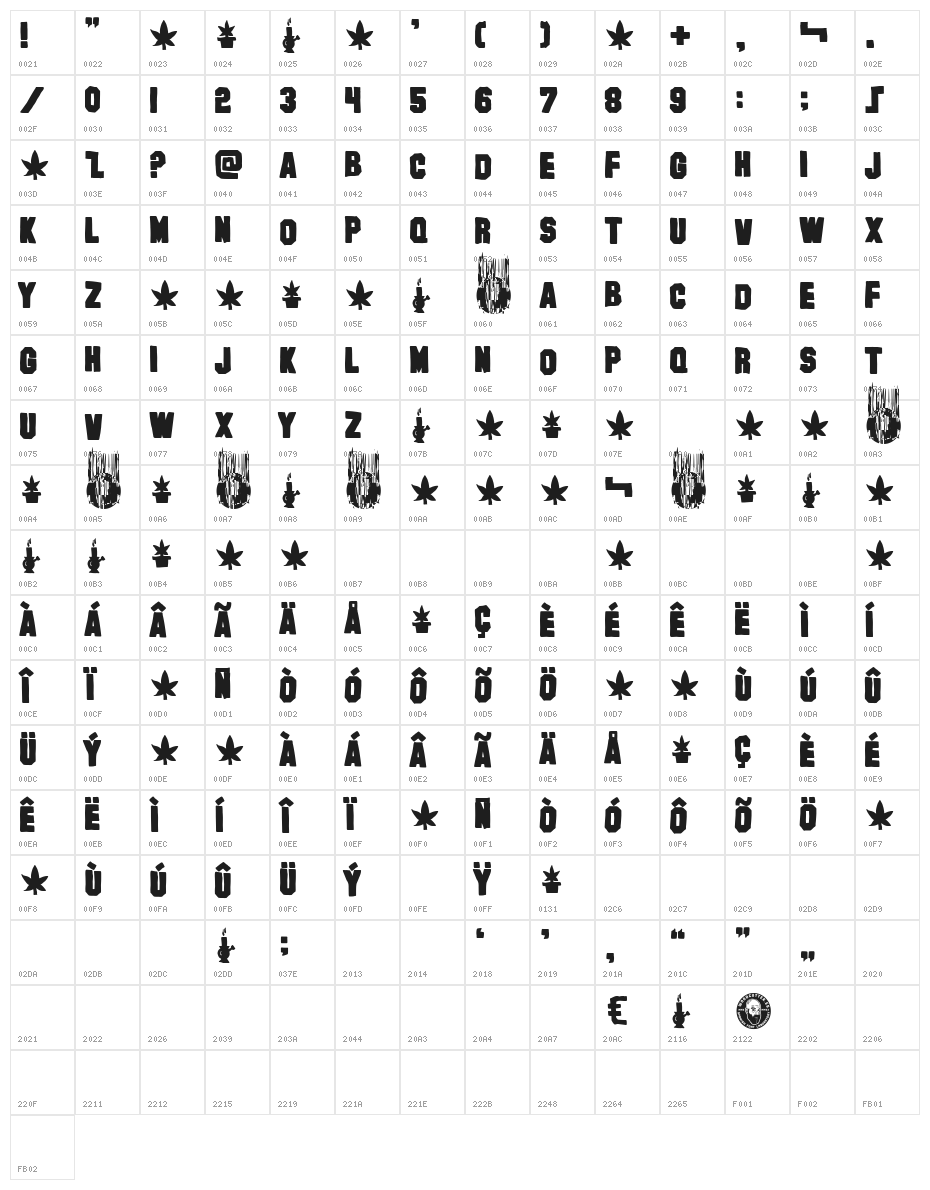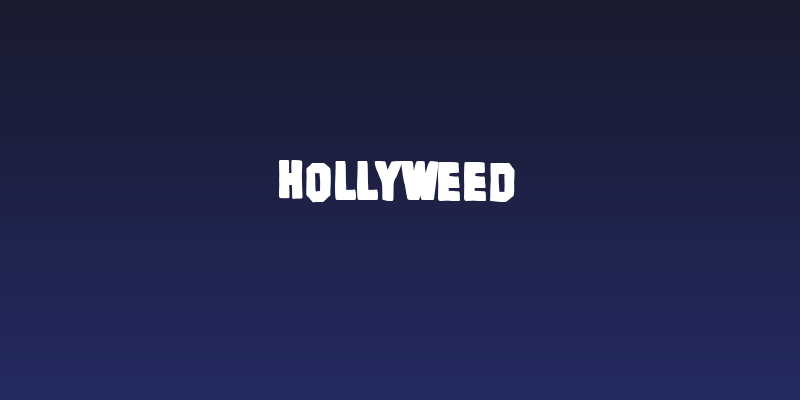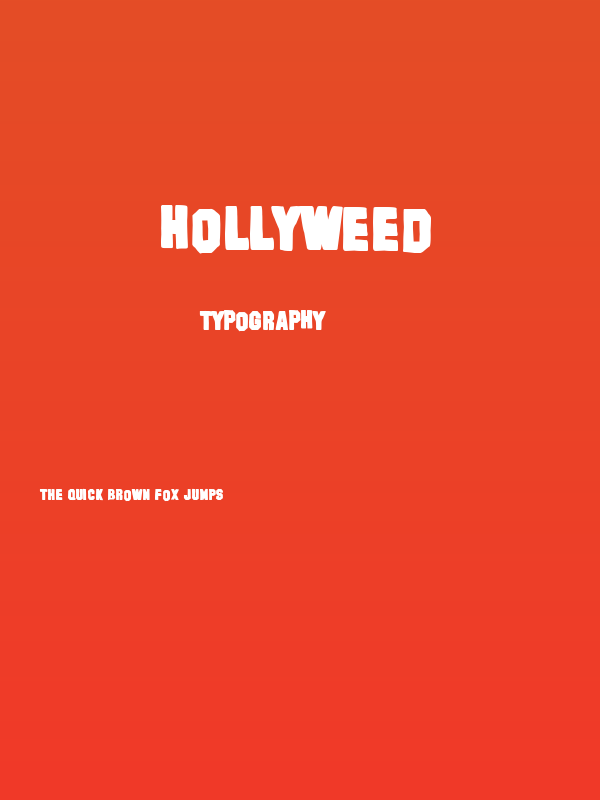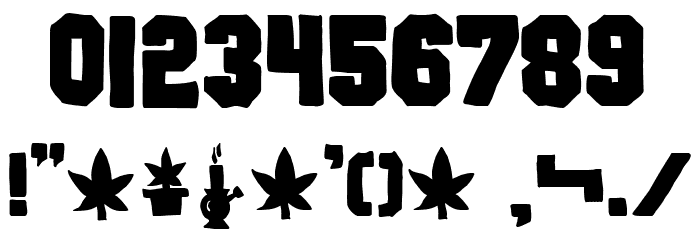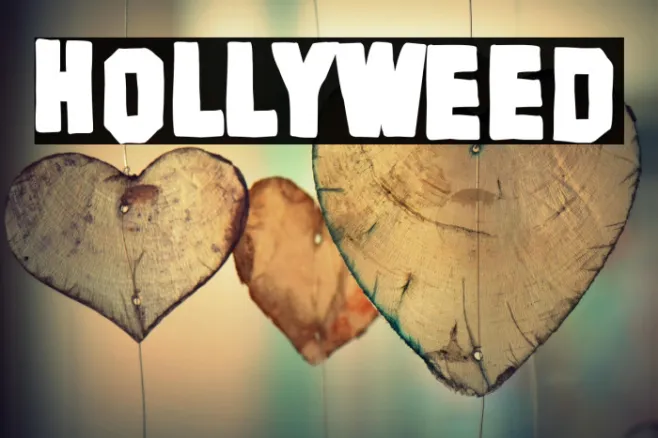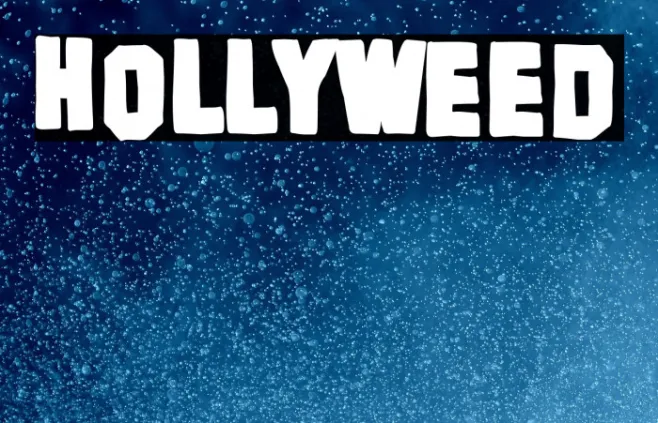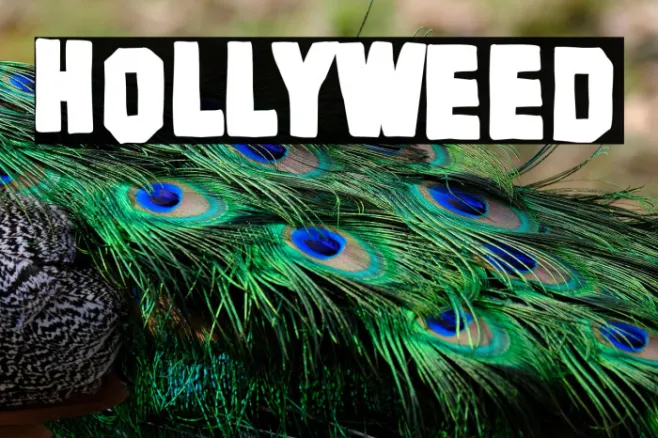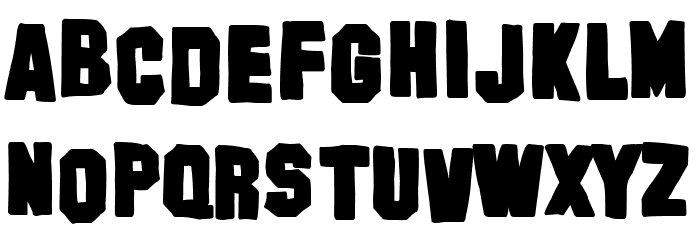
Hollyweed Font
Hollyweed Description
This font features a bold, blocky style with a playful and slightly rebellious edge. The characters are thick and heavy, with uneven edges that give them a hand-cut appearance. The uppercase letters are particularly striking, with a strong presence that demands attention. The numbers and special characters maintain this bold aesthetic, making the font suitable for impactful designs. The unique style is further emphasized by the inclusion of playful symbols, adding a touch of whimsy and creativity.
| Proposed Projects | Ideal for posters, album covers, streetwear branding, and any project needing a bold, eye-catching typeface. |